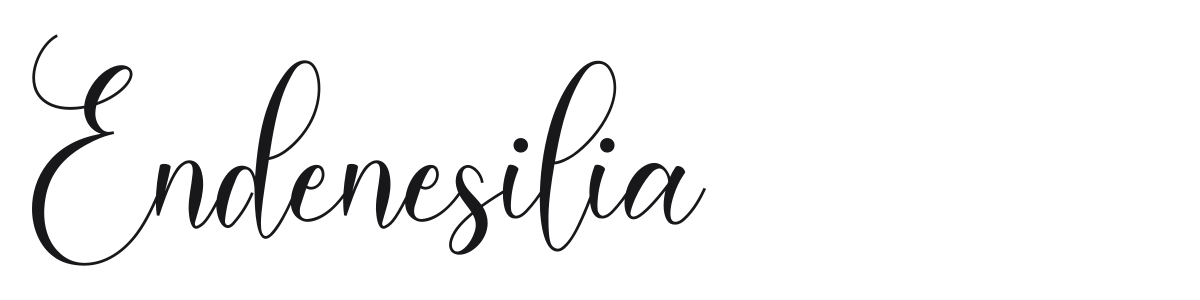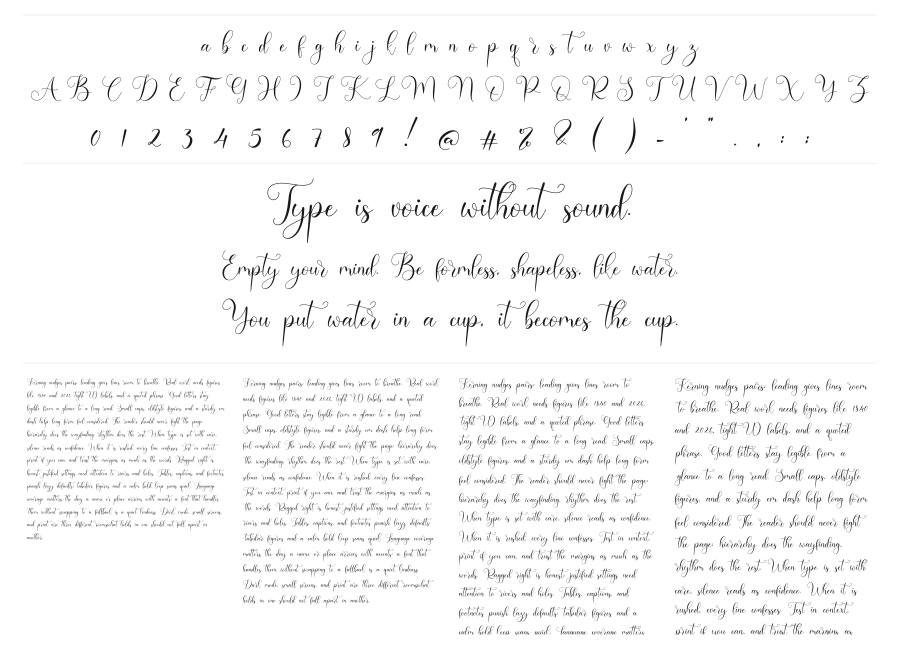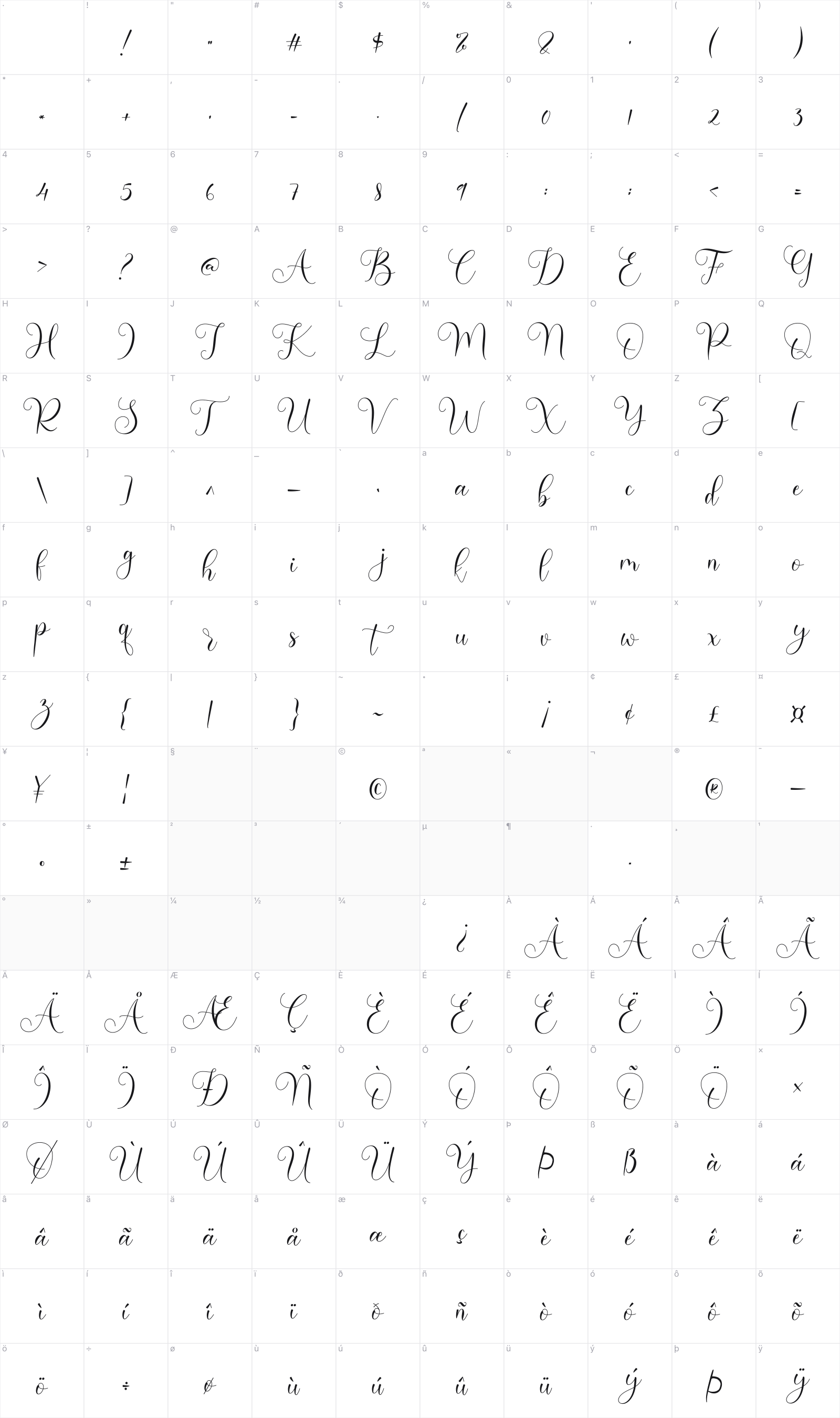
Endenesilia
Endenesilia is a high-contrast formal script with sweeping loops, swash terminals, and a lively bouncy baseline. The thick-to-thin stroke rhythm references classic copperplate and Spencerian traditions while feeling fresh and contemporary. It suits wedding stationery, beauty branding, and anywhere a touch of handcrafted romance is needed.